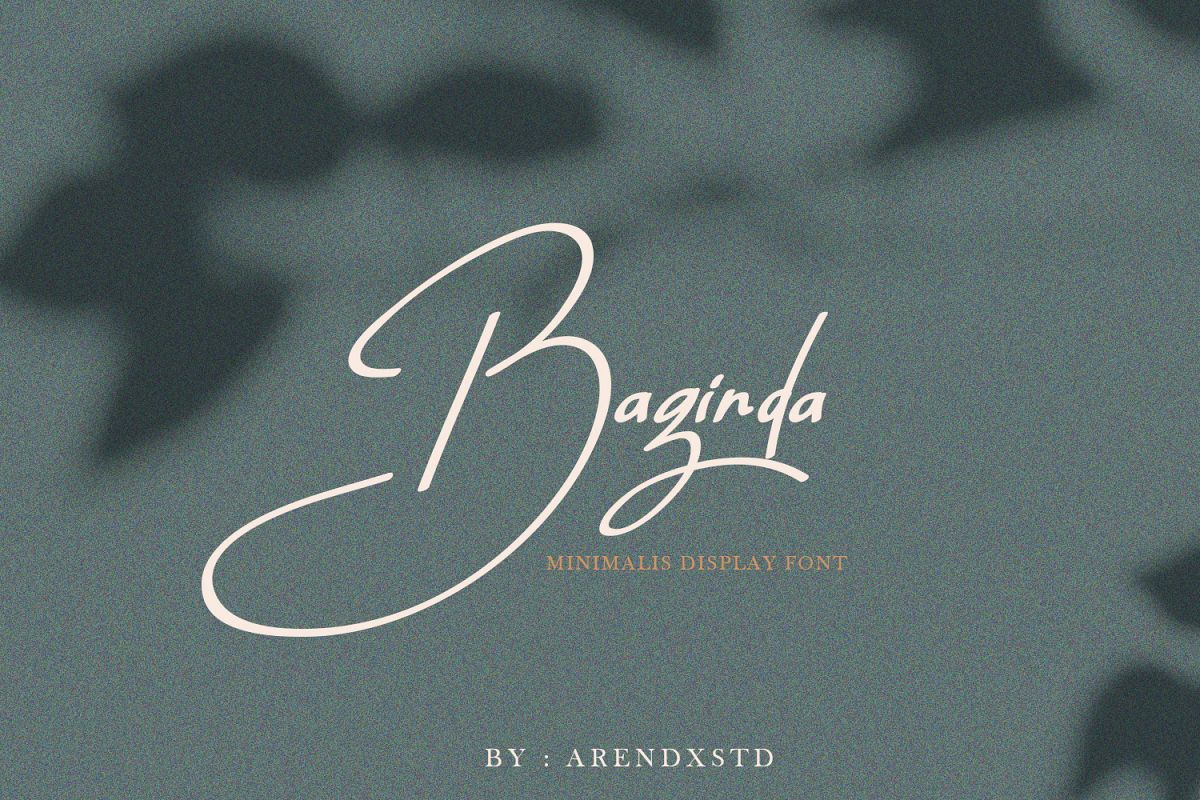
Baginda
Baginda is a new variant of handcrafted script typeface. present to you to complete your collection of script fonts.
This typeface has been enriched with additional alternative characters for up to 403 glyphs.